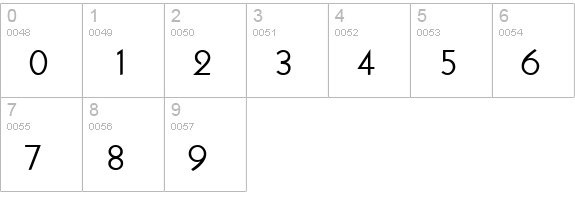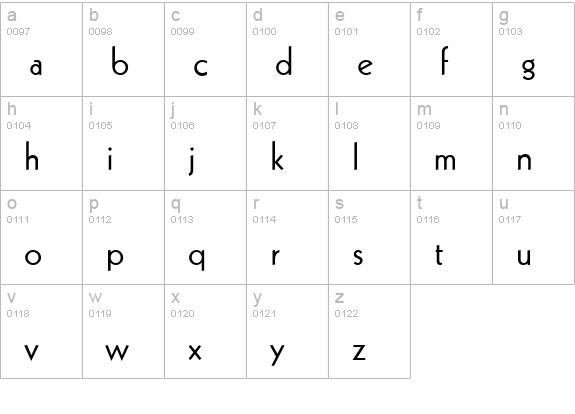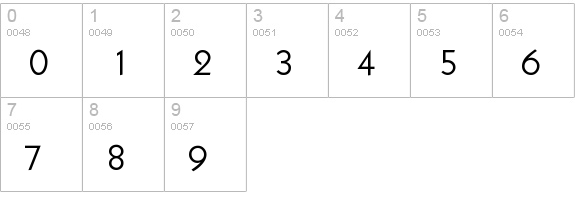
K791-Geometrical-Regular Font Details
K791-Geometrical-Regular is the standard, neutral variant in the K791 typeface family \xE2\x80\x94 well suited to general body text, paragraphs, and standard typographic work.
K791-Geometrical-Regular is a modern and sleek geometric font that exudes elegance and sophistication. With its clean lines and sharp angles, this font is perfect for creating bold and impactful designs. Whether you're working on branding, advertising, or any other creative project, K791-Geometrical-Regular will make a statement. This versatile font is suitable for a wide range of design applications and will add a touch of contemporary style to any project. Its balanced proportions and precise geometry make it a standout choice for both digital and print designs. K791-Geometrical-Regular is available for free download at FontsMarket.com, making it accessible to designers of all levels. Don't miss out on the opportunity to add this unique font to your collection and elevate your design projects to the next level.